Color Font support in Microsoft Office – the story so far
Color fonts are coming to Microsoft Office and Windows but progress is slow and patchy. Here’s a quick summary of color fonts and the occasional, erratic support in Outlook, Word and other Office programs.
What are color fonts
Since the beginning of Mac and Windows we’ve had single color fonts. Usually black but can be changed to another single color from the Home | Font Color selector in Office.
Color fonts can display multiple colors within the character like these symbols or emoji.
Almost all the fonts supplied with Windows and Mac are monochrome fonts The exception is Segoe UI Emoji which has colored emoji. There are other color fonts that can be installed in Windows or Mac, such as the Brand Logo font.
Technically there are four different types of color font but OpenType-SVG fonts is the major format that’s prevailed in a minor format war. OpenType-SVG color fonts are supported by Microsoft in Windows 10, Apple in MacOS 10.14 (Mojave, the current MacOS), iOS 12 and later. Windows 10 got some color font support in the late 2015 (Anniversary) release which was improved in the first 2016 update (Creators).
Color fonts should include a monochrome fallback version for when the program can’t display the full color character. That’s vital when it comes to Microsoft Office, even the latest Office 365 for Windows.
Color font support
Just using a color font won’t make them appear in a document, email or program. The programs themselves must also be retooled to display the colors, as well as the operating system. Without development work at the program level, you’ll just see a black version of the character.
The need for program support is starkly visible in Microsoft Office which only has very limited support for color fonts.
MS Office support for color fonts could politely be called a ‘work in progress’. Tony Roche’s term ‘omnishambles‘ is more appropriate.
Color fonts only in Outlook 365
At present, color fonts are visible in Outlook 365 for Windows and Mac. The 365 version of Word, Excel and PowerPoint only show the monochrome versions of color symbols.
Copy a color font image (from Microsoft’s own Segoe UI Emoji) to Word and you’ll get a plain monochrome version instead.
However, that’s not consistent. As you’ll see later, some Segoe UI Emoji do appear in colored in a Word 365 document.
Color fonts in emails
If you added color emoji to an Outlook email, there’s no guarantee that the email receiver will see the color version or anything at all.
That’s because the Windows 10 emoji shortcut (Win + . fullstop/period) inserts symbols from Segoe UI Emoji font. The receiver might not have that font or a color equivalent.
The Outlook 365 for Windows preview line doesn’t show color symbols. Here’s the preview line of an incoming email (left) and the reading pane view of the same message (right).
Outlook 365 for Mac has better color font support though there are inconsistencies and notable design differences. Compare the pizza and ice-cream emoji between Outlook for Windows (above) and Outlook for Mac (below). The very different look of the emoji is because they are using different emoji fonts designed by Microsoft and Apple respectively.
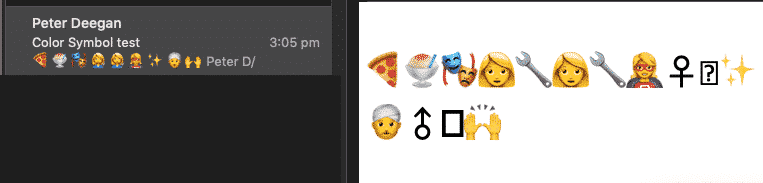
Emoji in Outlook HTML emails
For anyone interested, here’s how Outlook inserts an emoji into a HTML email. In the CSS <style> block there’s a font definition with Panose type classification.
@font-face {font-family:"Segoe UI Emoji"; panose-1:2 11 5 2 4 2 4 2 2 3;}
In the message <body> the font ‘Segoe UI Emoji’ is specified. If that’s not available, then any san-serif font.
<span style='font-family:"Segoe UI Emoji",sans-serif'>👩</span>
Segoe UI Emoji inconsistent between Office programs.
Even within the Office 365 programs with a Microsoft created font there are strange variations.
Here’s the same Segoe UI Emoji characters in Outlook and then pasted into Word, Excel, PowerPoint and Publisher. Only Outlook 365 shows full color for all symbols. It’s hard to know where to start with the inconsistences between Office programs in displaying a Microsoft supplied font in Microsoft programs.
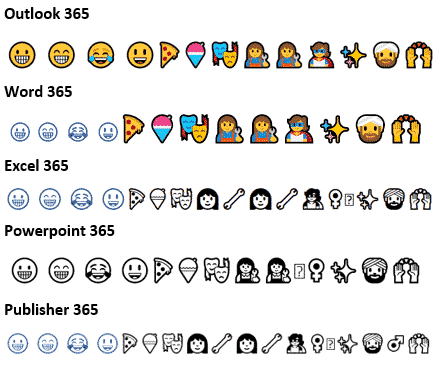
It’s like one of those ‘Spot the difference’ puzzles with two drawings almost the same! Just a few differences (feel free to find more):
- Four ‘smiley’ emoji are blue in Word 365, Excel 365 and Publisher 365 but not PowerPoint 365.
- The smiley’s should be colored in Word 365.
- Excel 365 and Publisher 365 splits some symbols like Female Mechanic into two (a female face then a wrench)
- Some ? marking ‘unknown’ characters.
- Where does the female symbol come from?
Save to PDF
Exporting to PDF works well with color fonts, as it should.
A PDF made from Office should display the color fonts in the same way they appeared in the original document.
Use color fonts or not?
Color fonts will be a good addition to Microsoft Office. But Redmond needs to do a lot of work to reach consistency across the Office applications. It’s especially hard to understand the color font display differences between Outlook and Word because they both use the same common-code editing features.
For the moment, probably wise to limit color fonts to stand-alone documents where you can control the output; either printed or saved to PDF. Sharing documents or emails with color fonts may result in confused viewers/receivers who don’t see what you expect.